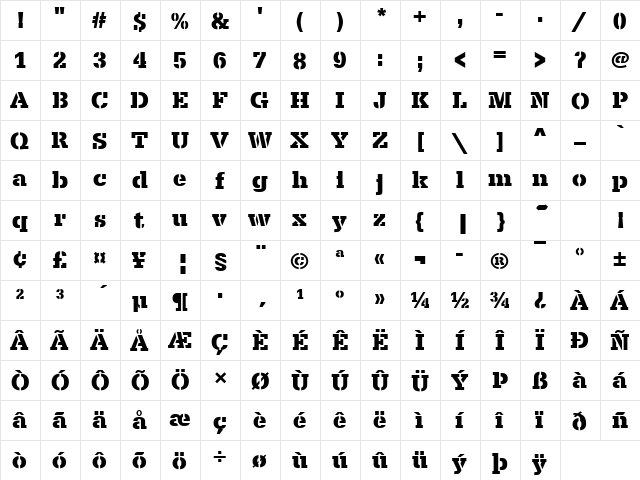
SerifaSteDBol Regular
Design Context for SerifaSteDBol Typeface
SerifaSteDBol brings classic typographic sensibility to the table — its serifs and measured letterforms reflect centuries of print heritage.
Pro Tip: Set SerifaSteDBol with slightly loose tracking in headlines to let each letterform's detail read clearly at display sizes.